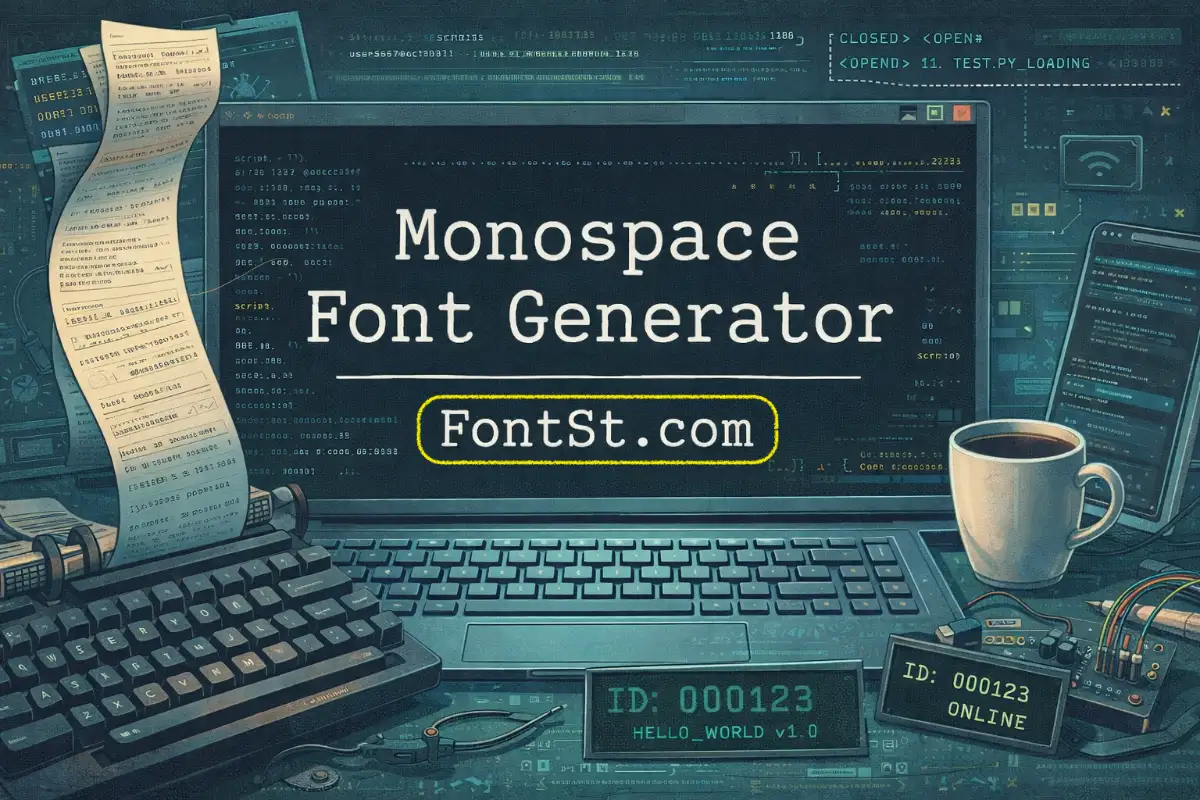
Monospace text gives everything a crisp “terminal/code/typewriter” look where every character takes the same width. Use FontSt’s Monospace Font Generator to create monospaced fonts copy and paste styles for bios, captions, usernames, code snippets, and clean layouts.
What Is A Monospace Font?
A monospace font (monospaced font) is a typeface where every character has the same width—so i, W, and 0 line up perfectly. That’s why it’s used for code editors, terminals, receipts, labels, and anything that needs neat alignment.
Best uses
• Code snippets and developer posts
• Serial/ID layouts, tables, ASCII art
• “Clean tech” bios and captions
• Retro typewriter vibes
Monochrome Font Generator (What People Usually Mean)
Many people search “monochrome font generator” when they want a simple, clean, one-style look (often black-and-white aesthetic). Monospace fits that vibe because it’s minimal and structured.
• Quick tip: If your goal is a “monochrome” feel, choose a clean monospace style, avoid heavy symbols, and keep spacing consistent.
Monospaced Fonts Copy And Paste
Try these:
• HELLO WORLD
• ID: 000123
• BUILD v2.6
• ONLINE 24/7
Top Nice Monospace Fonts And Why They Work
“Top nice monospace fonts” usually share these traits:
• Clear 0 vs O difference
• Distinct 1 (not confused with I or l)
• Even spacing that stays readable on mobile
If your output looks cramped, reduce punctuation and shorten the phrase.
Monospace Font Family Basics
• A monospace font family is just a group of matching styles (regular/bold/italic) designed to work together. In copy/paste generators, you’ll mainly pick the visual style rather than install a full family—perfect for fast results.
Monospace Sans Serif Font
A monospace sans serif font feels modern and clean (less “typewriter,” more “UI/terminal”). It’s great for:
• Tech captions
• Minimalist posters
• Dashboard/metrics aesthetics
Monospace Font Examples You Can Test
Paste these into the generator input to compare styles quickly:
• abcdefghijklmnopqrstuvwxyz
• ABCDEFGHIJKLMNOPQRSTUVWXYZ
• 0123456789
• CODE: A1B2-C3D4
• 00:45 99% v2.6
Look specifically at: 0 O 1 I l 8 B 6 G.
Best Mono Fonts List
Below are common monospace names people look up. If you need the exact font in design software, you must install it. If you just need the vibe for social posts, use the generator’s copy/paste styles.
Cascadia Mono Font
• A popular modern coding font vibe: clean shapes, great readability, modern terminal feel. Use this “look” for developer bios and code-themed posts.
Courier New Monospace
• The classic “typewriter” default many people recognize. Great for retro notes, “document” aesthetics, and old-school captions.
Helvetica Monospaced
• People often search this meaning “a clean monospace similar to Helvetica’s modern feel.” For that vibe: choose a minimal, sans-serif monospace style in the generator.
Arial Monospaced
• Similar intent to Helvetica monospaced—clean, simple, readable. Pick modern monospace styles that stay plain and clear.
Monospace Font Google
When users say “monospace font google,” they may mean:
• Google Fonts monospace families (for web/design)
• Or just a web-safe monospace look
For quick copy/paste: use the generator. For websites: choose a monospace from Google Fonts and apply in CSS.
Modern Monospace Font
Modern monospace looks less “typewriter” and more “UI/tech.” Best for:
• crypto/finance stat posts
• productivity dashboards
• minimal brand captions
Non Proportional Fonts
“Non proportional fonts” is another name for monospace fonts. Same idea: equal-width characters, perfect alignment.
Century Schoolbook Monospace
• Century Schoolbook is traditionally serif and not inherently monospace. People search this when they want a “bookish, classic” feel with strict alignment. If you want that vibe, choose a classic-looking monospace style and keep text short.
Monospace Script Font
Best Mono Fonts For Coding
For coding, the “best” monospace fonts usually have:
• clear 0 vs O
• distinct 1 vs I vs l
• good punctuation clarity ({ } ( ) ; :)
For social posts, pick a clean terminal-like style that stays readable on mobile.
Monospace Regular Font Meaning
• “Monospace regular font” typically refers to the normal (non-bold) weight of a monospace family. Regular weight is best for long text blocks; bold is better for short headlines, numbers, or high-contrast posts.